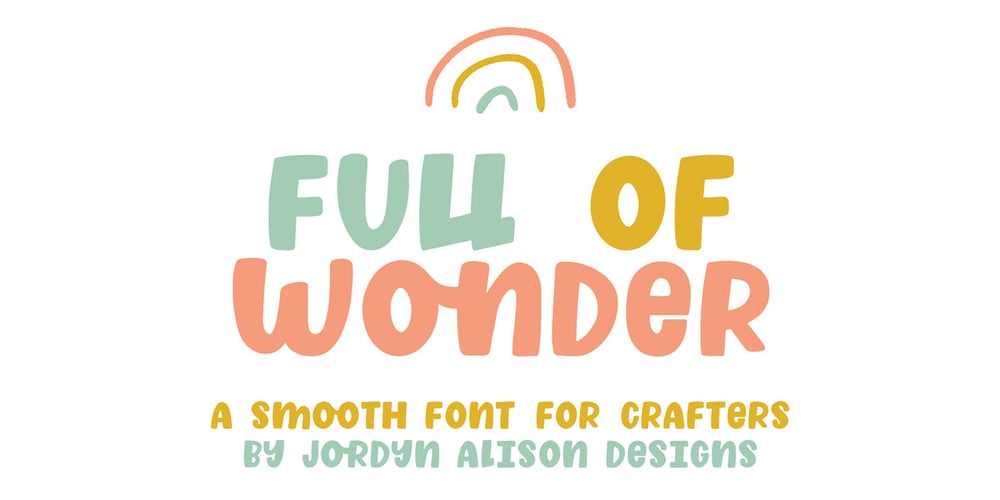
Full of Wonder
Full of Wonder font
Full of Wonder Font Family was designed by Jordyn Griffin and published by Jordyn Alison Designs. Full of Wonder contains 1 styles and family package options. Full Of Wonder is a smooth and thick font perfect for crafting with! Full Of Wonder features:• Set of alphabet characters, numbers, punctuation, and symbols• 3 standard ligatures & 3 discretionary ligatures • 2 alternate characters• Multilingual support